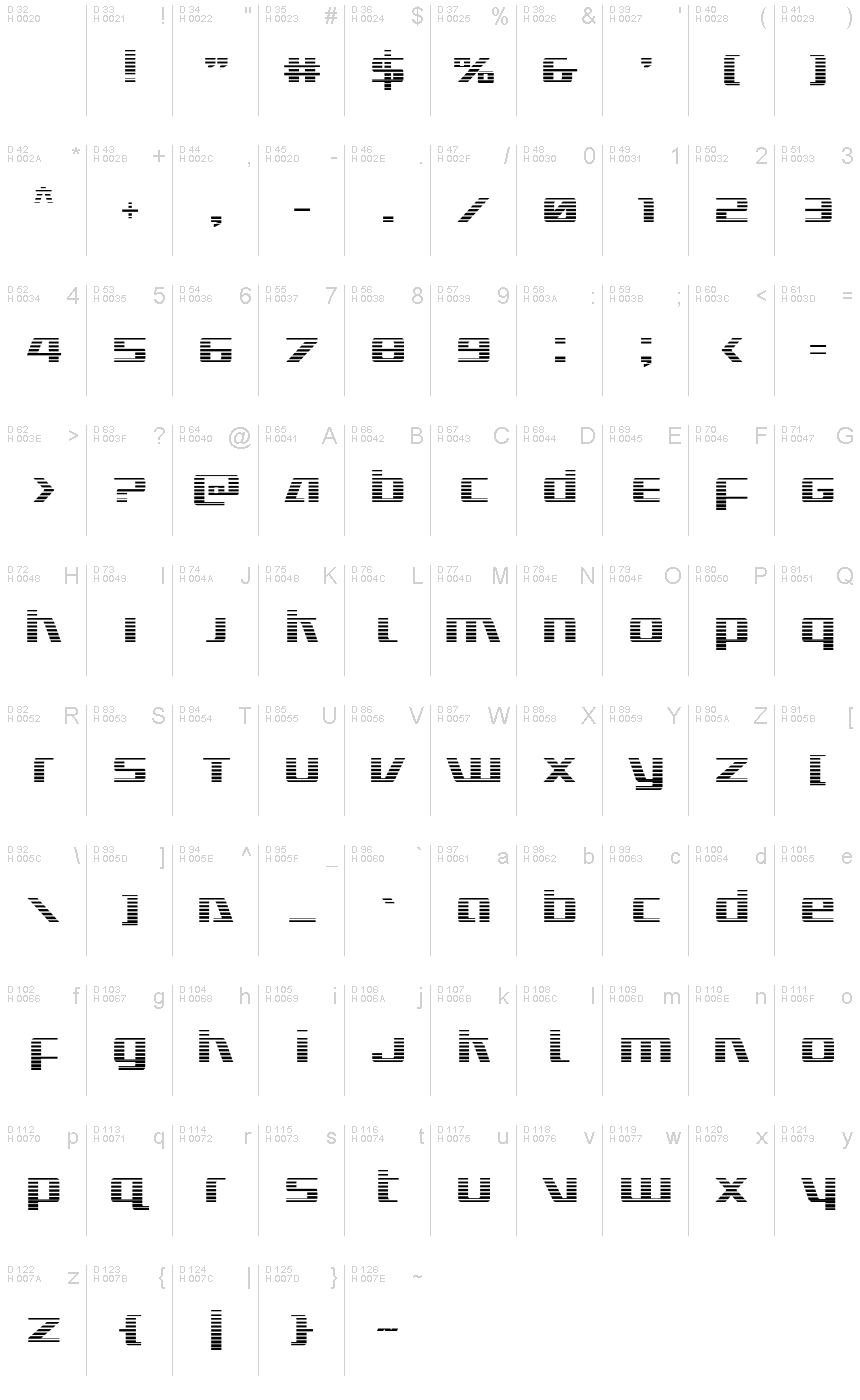
Ultramarines Gradient
Ultramarines Gradient font, belonging to the Ultramarines family by Iconian Fonts, captivates with its strikingly bold and futuristic design. This display typeface features a unique expanded structure that commands attention, allowing each character to pop with vibrant energy. The gradient detailing enhances its modern appeal, making it visually dynamic and suitable for eye-catching applications.
Ideal for technology-related projects, gaming graphics, or any creative endeavor aiming for a contemporary edge, Ultramarines Gradient effortlessly bridges functionality and aesthetic allure. Its impressive presence ensures it stands out in branding materials, posters, and advertisements. Whether conveying innovation or exhilaration, this font excels in captivating audiences with a sense of forward-thinking design.